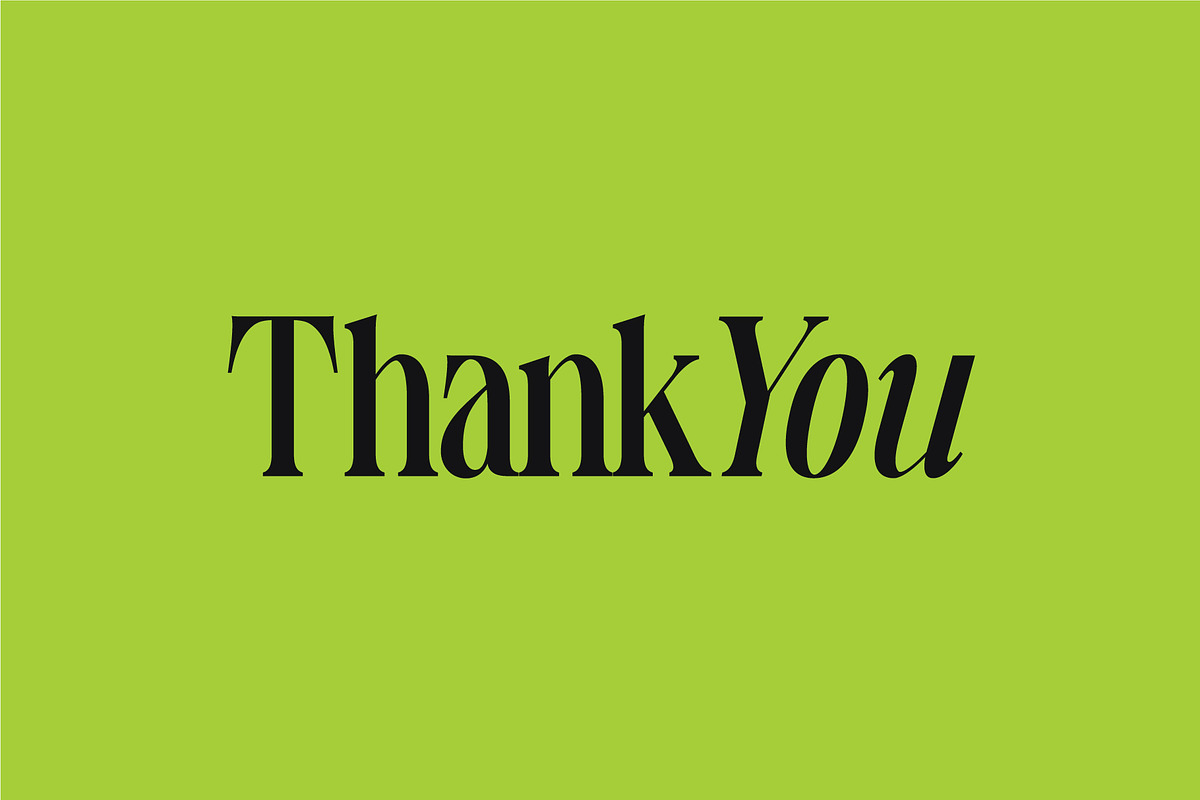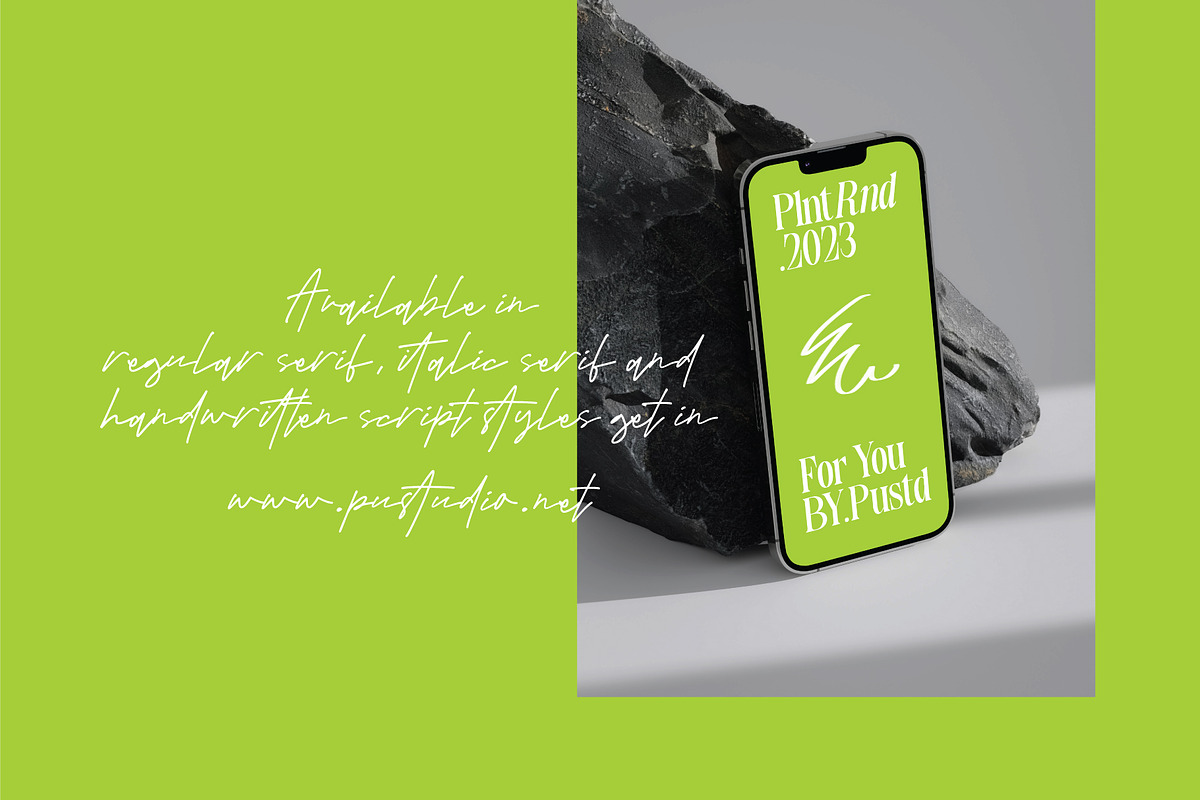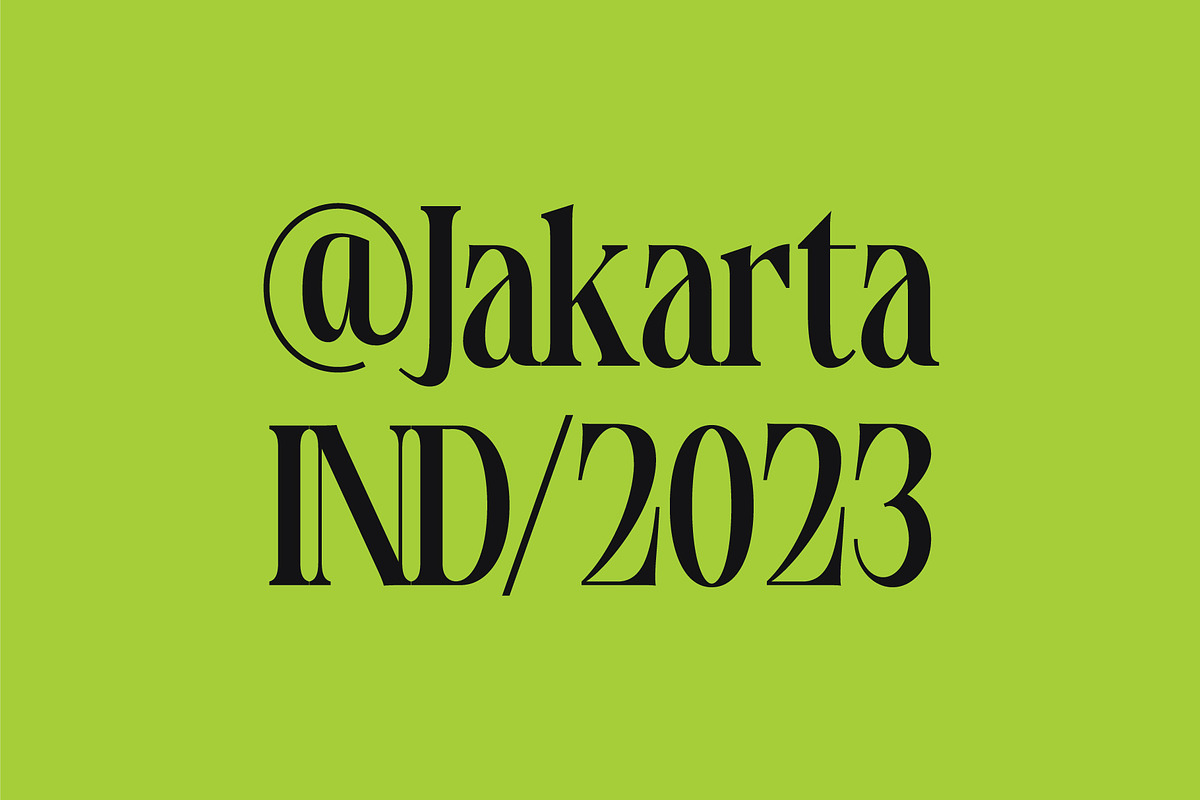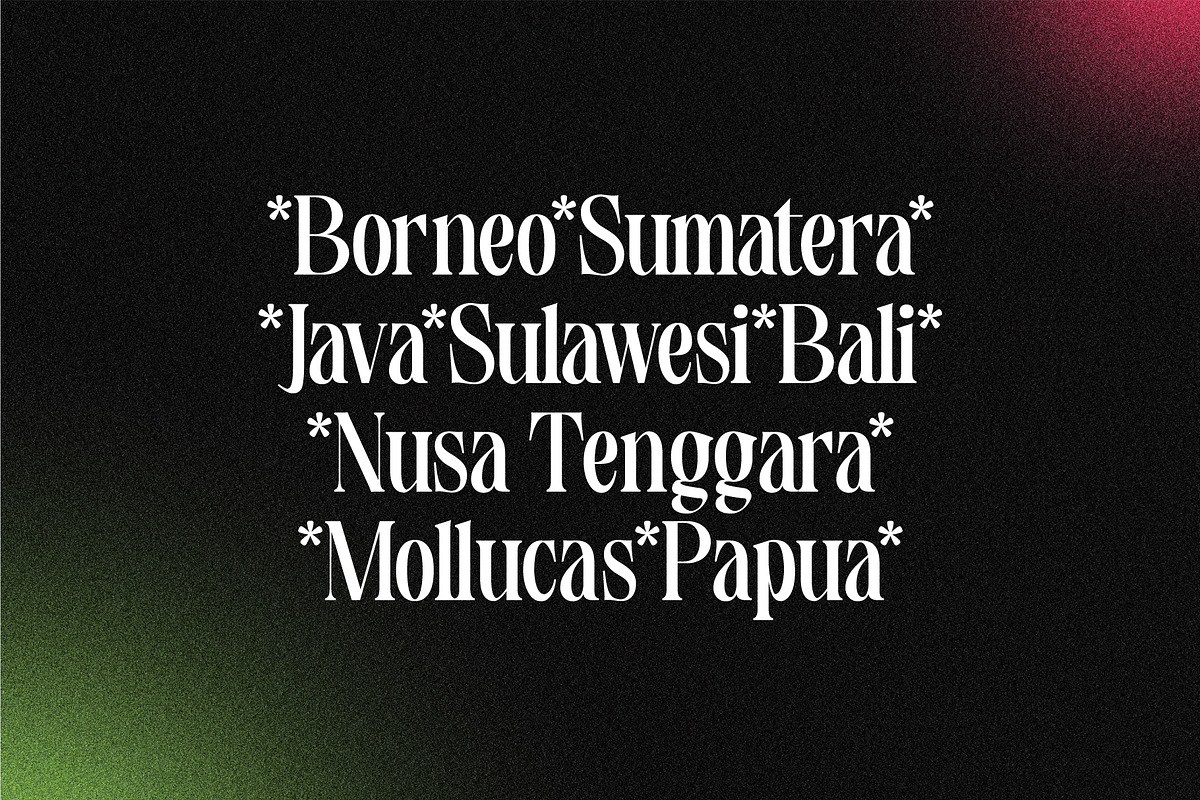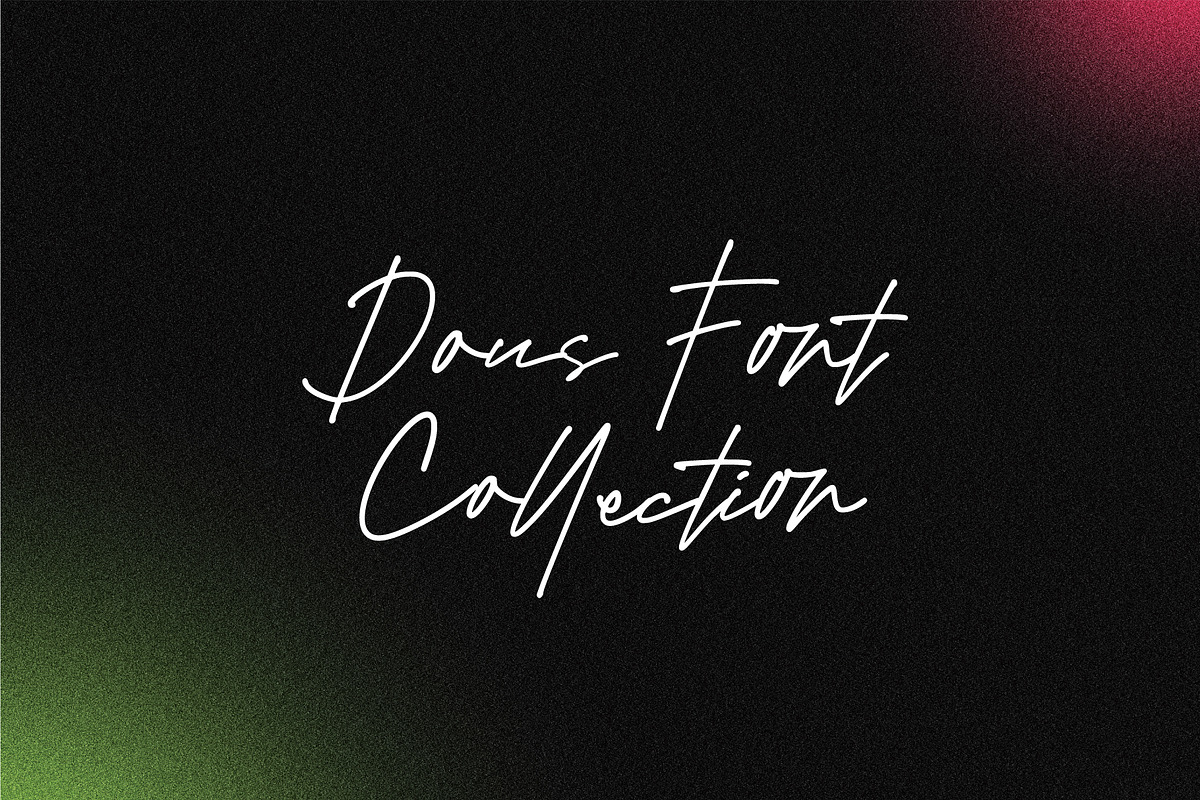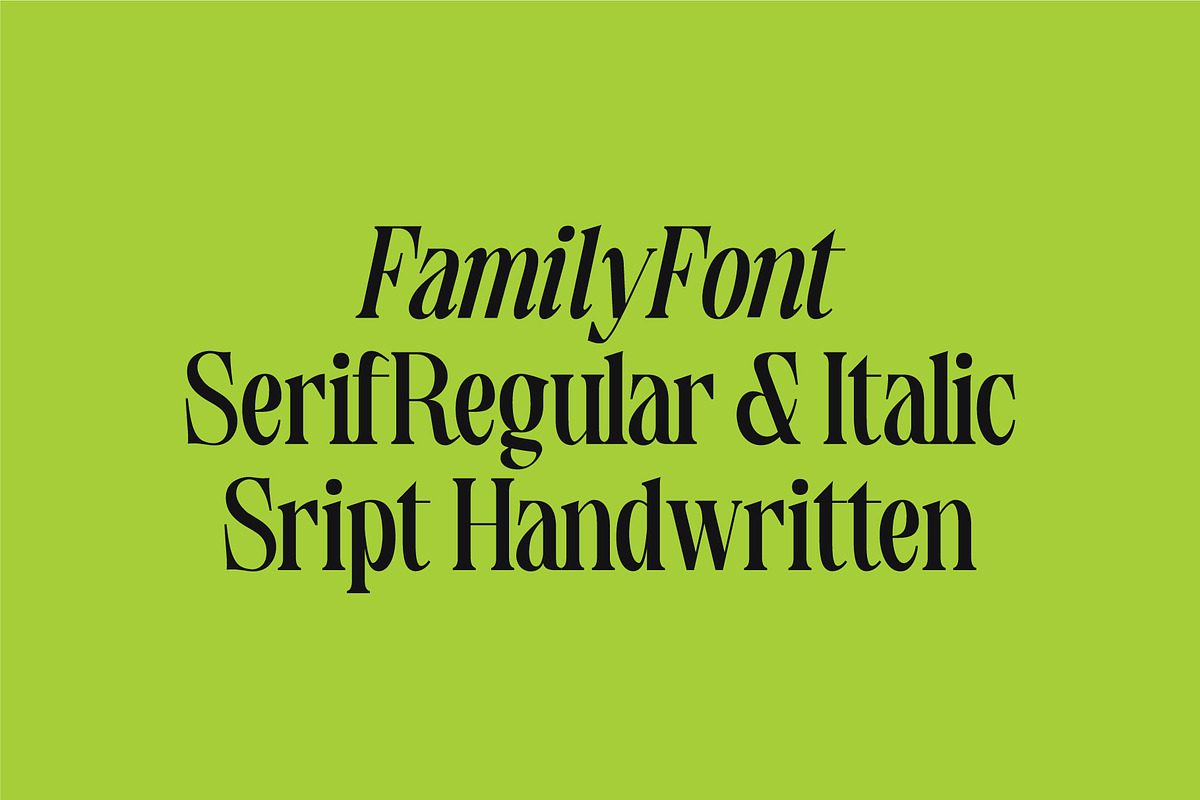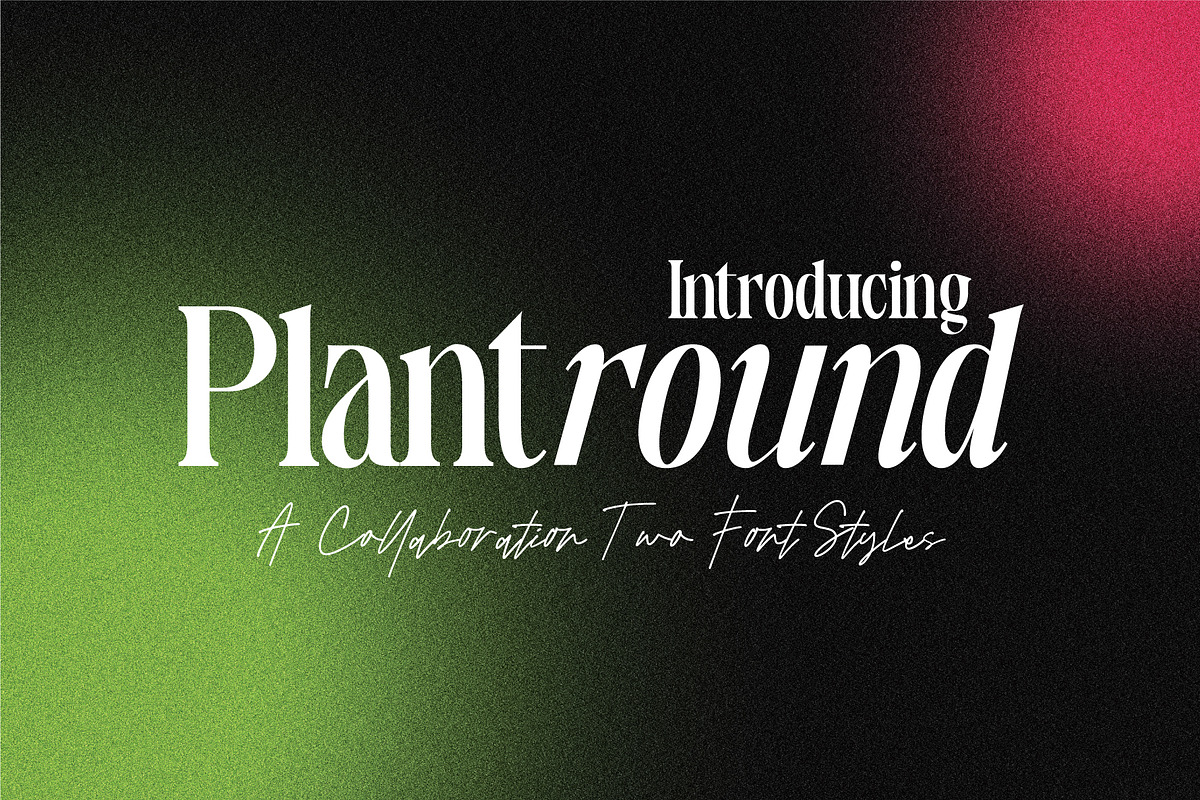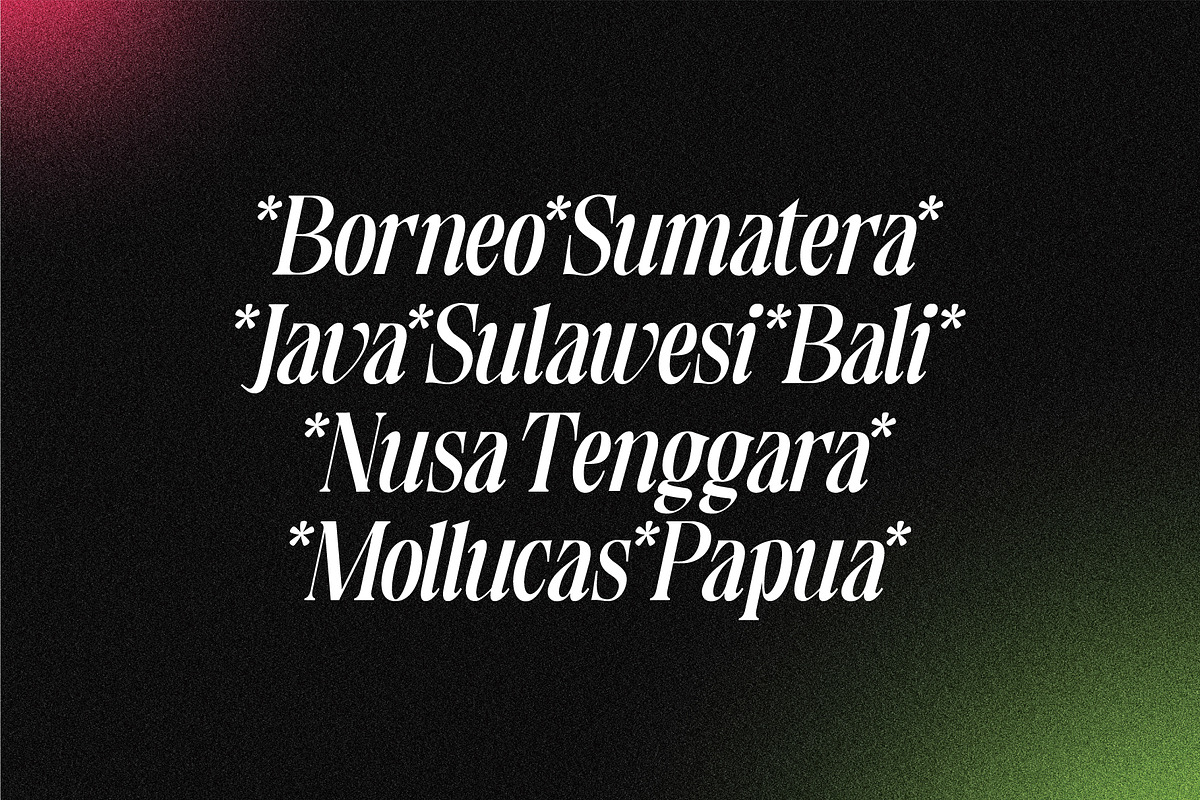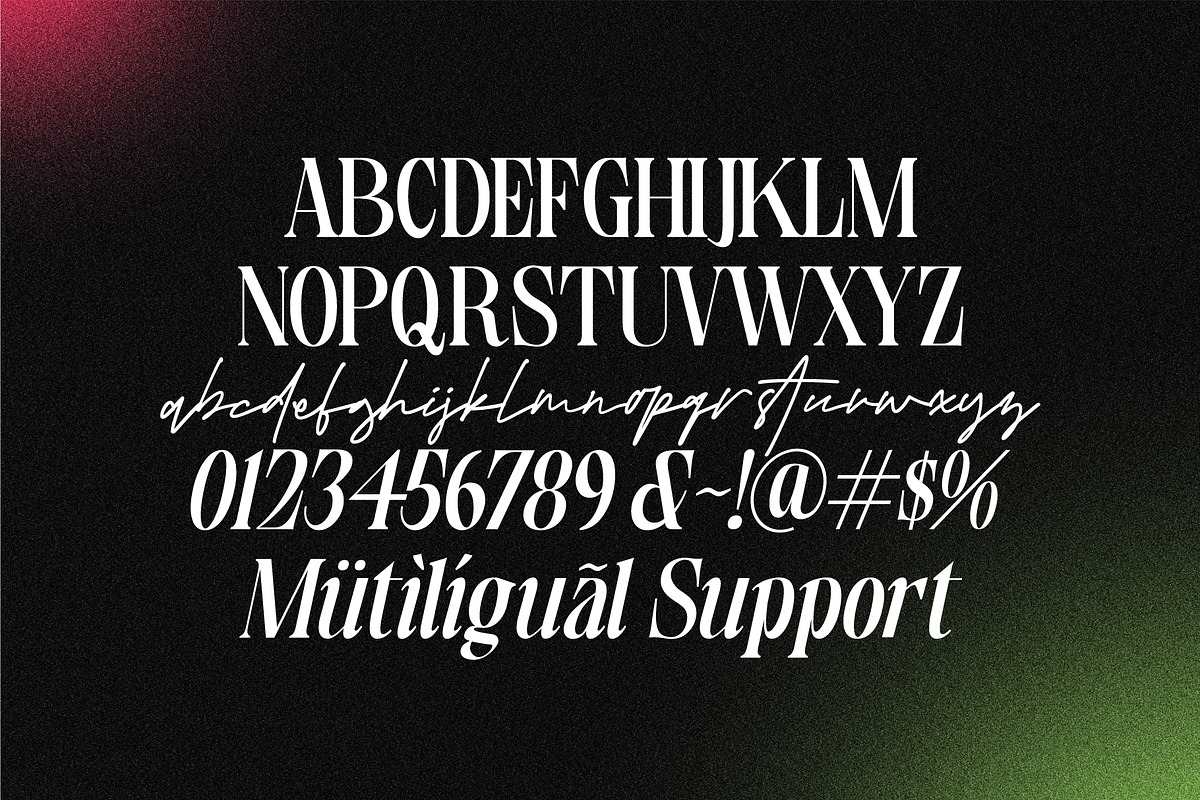
Plantround
Plantround is a beautiful blend of elegance, artistic feel and classic. The fine details on each letter, enhanced by small projections at the edges, create a charming balance of typographic elements. The clarity and legibility of the letters makes them functional, ideal for formal prints such as books, newspapers or official documents. By giving a sense of continuity and stability to graphic designs, plantround fonts are a wise choice to convey serious and deep messages. As a powerful communication tool, this font is not just a collection of beautiful letters, but a work that conveys a message with nobility and boldness.